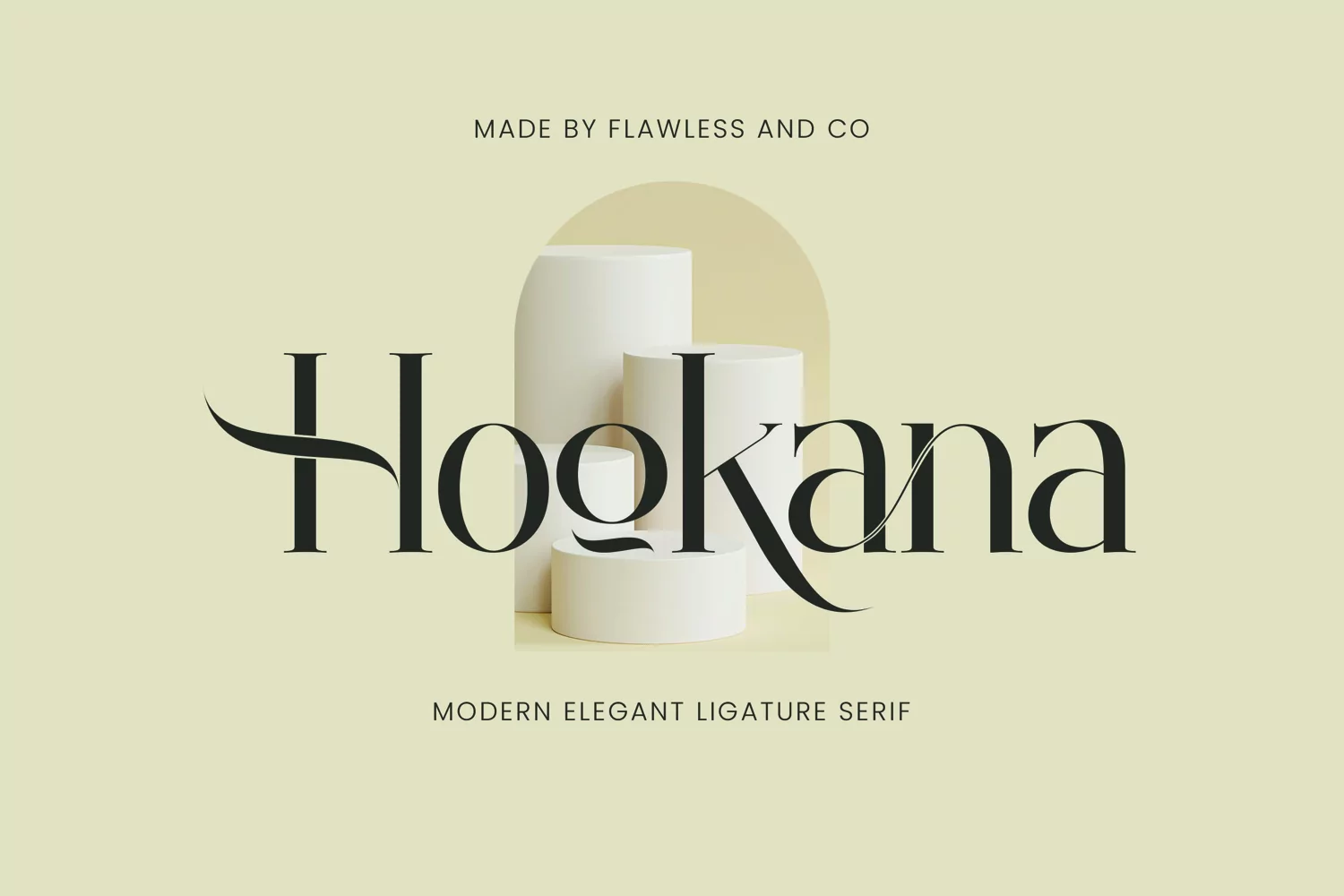
Hookana
Hookana is a Modern Serif, that gives a feel of Elegant font type.
There's some connected letters and some alternates that suitable for any graphic designs such as branding materials, t-shirt, print, business cards, logo, poster, t-shirt, photography, quotes .etc
This font support for some multilingual. Also contains uppercase A-Z and lowercase a-z, alternate character, numbers 0-9, and some punctuation.